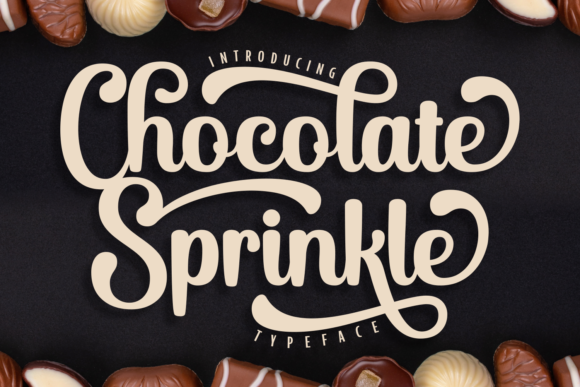
Indulge your senses with the irresistible charm of Chocolate Sprinkle Font, a delectable treat for your design projects. This bold, trendy, and stylish script font is here to sweeten your Valentine's Day and beyond! Created by the talented Jasm from 7NTypes, this font is a must-have for anyone looking to add a touch of elegance and playfulness to their creations.
With its PUA encoding, Chocolate Sprinkle Font unlocks a world of possibilities. Access all the delightful glyphs and swashes effortlessly, allowing your creativity to flow like melted chocolate. Whether you're crafting heartfelt cards, revamping your brand's image, or designing eye-catching labels, this font will be your secret ingredient to success.
Unleash your imagination and watch as your designs transform into mouthwatering masterpieces. Chocolate Sprinkle Font is the cherry on top, bringing a sprinkle of magic and romance to your projects. Its captivating curves and smooth lines will captivate your audience, leaving them craving more.
Embrace the power of this font and take your creations to the next level. Let the words dance on the page, invoking emotions and stirring hearts. Whether you're expressing love, joy, or celebration, Chocolate Sprinkle Font will infuse your message with warmth and charm.
Indulge in the versatility of Chocolate Sprinkle Font. From wedding invitations that exude elegance to playful packaging for Valentine's Day gifts, this font effortlessly adapts to any project. Its unique personality shines through, making every word a work of art.
Don't settle for ordinary when you can have extraordinary. Chocolate Sprinkle Font is the sprinkles on your cupcake, the final touch that elevates your designs to new heights. Its magnetic allure will draw attention and leave a lasting impression on anyone who lays eyes on your creations.